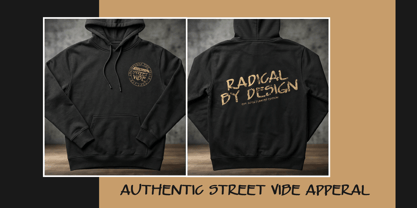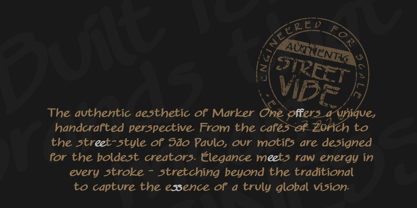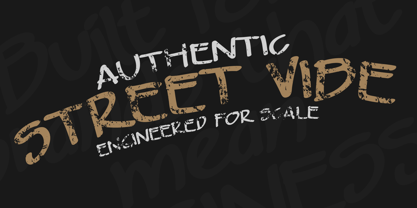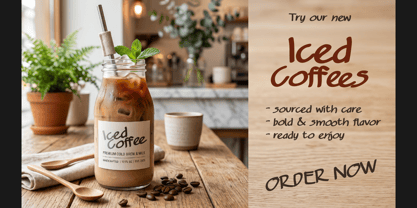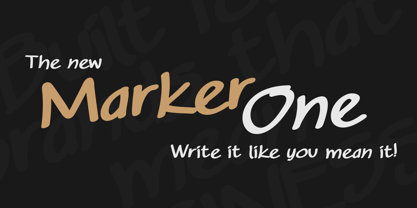
Marker One
The Marker One Font Family was designed by Kevin Renes and published by Petrol Studios. Marker One contains 1 styles. More about this family
Marker One is an expressive, hand-brushed script that captures the raw energy of quick, confident strokes. Designed with a street-style aesthetic, this typeface balances a bold stroke with a fluid rhythm, making it an ideal choice for high-impact branding, poster design, and apparel. Inspired by the look of permanent ink on smooth surfaces, the design features a slight natural slant and varied line weights that mimic the pressure of a real marker. This organic feel provides an authentic, "low-fi" personality to digital designs without sacrificing legibility. Key Features Comprehensive Glyph Set: Includes over 250 glyphs, covering uppercase, lowercase, numbers, and extensive punctuation. Dynamic Ligatures: Features a collection of double-letter ligatures (such as 'aa', 'ee', 'ff', and 'tt') to create a more natural, hand-written appearance by avoiding repetitive shapes. Multi-Lingual Support: Full support for Western, Central, and South Eastern European languages, including accented characters and special symbols. Versatility: Includes alternates to give your headlines a custom, hand-lettered look. Whether you are designing a gritty music festival flyer or a bold social media campaign, Marker Onedelivers a punchy, rebellious spirit to every layout.